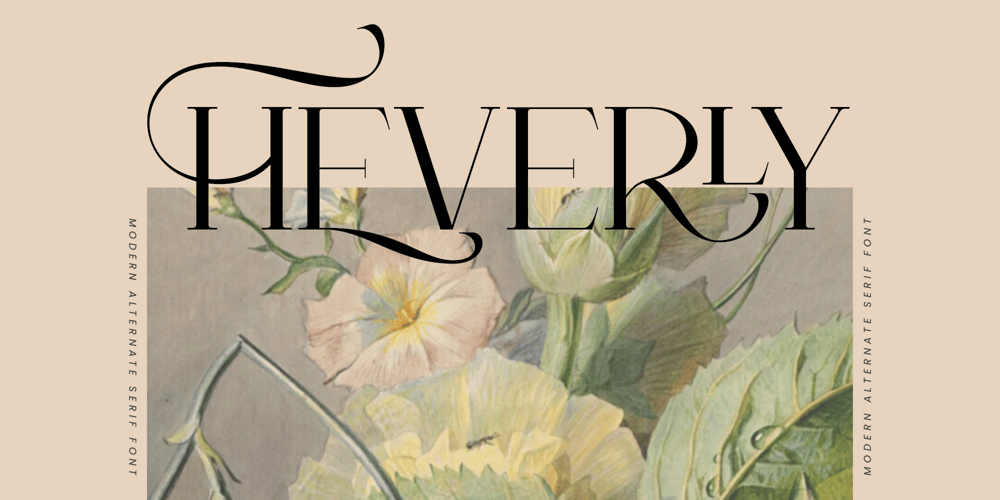
The Heverly
The Heverly font
The Heverly Font Family was designed by Achmad Yani and published by Flawlessandco. The Heverly contains 1 styles and family package options. Introducing “Heverly” – A Modern Alternate Serif Typeface. Unleash the power of modernity intertwined with classic charm with “Heverly,” a striking alternate serif font that goes beyond mere letters, offering a canvas for your creativity to flourish. This serif typeface is more than letters on a page; it’s a journey into a world where every curve and line tells a story of both nostalgia and innovation.There’s some connected letters and some alternates that suitable for any graphic designs such as branding materials, t-shirt, print, business cards, logo, poster, t-shirt, photography, quotes .etcThis font support for some multilingual. Also contains uppercase A-Z and lowercase a-z, alternate character, numbers 0-9, and some punctuation.If you need help, just write me! Thanks so much for checking out my shop!